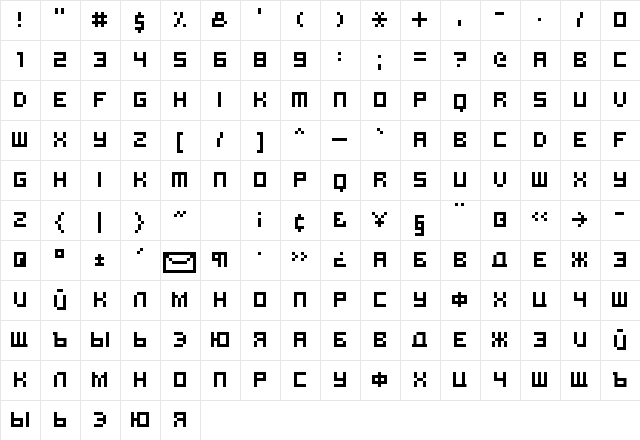
hooge 05_55 Cyr Regular
| Designer | Craig Kroeger (eng) & Nikolay Dubina (rus) |
Design Context for hooge 05_55 Cyr Typeface
hooge 05_55 Cyr is a composed and adaptable typeface that performs quietly and consistently across a wide range of design contexts.